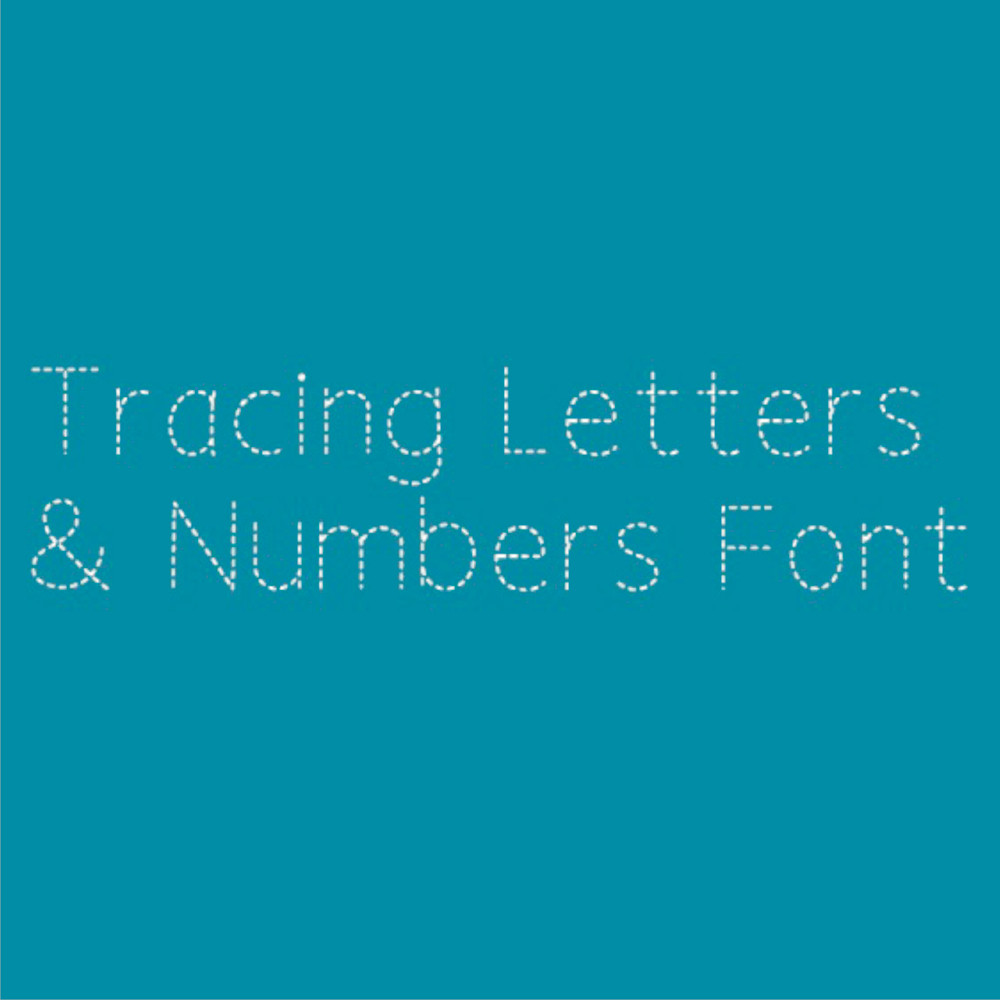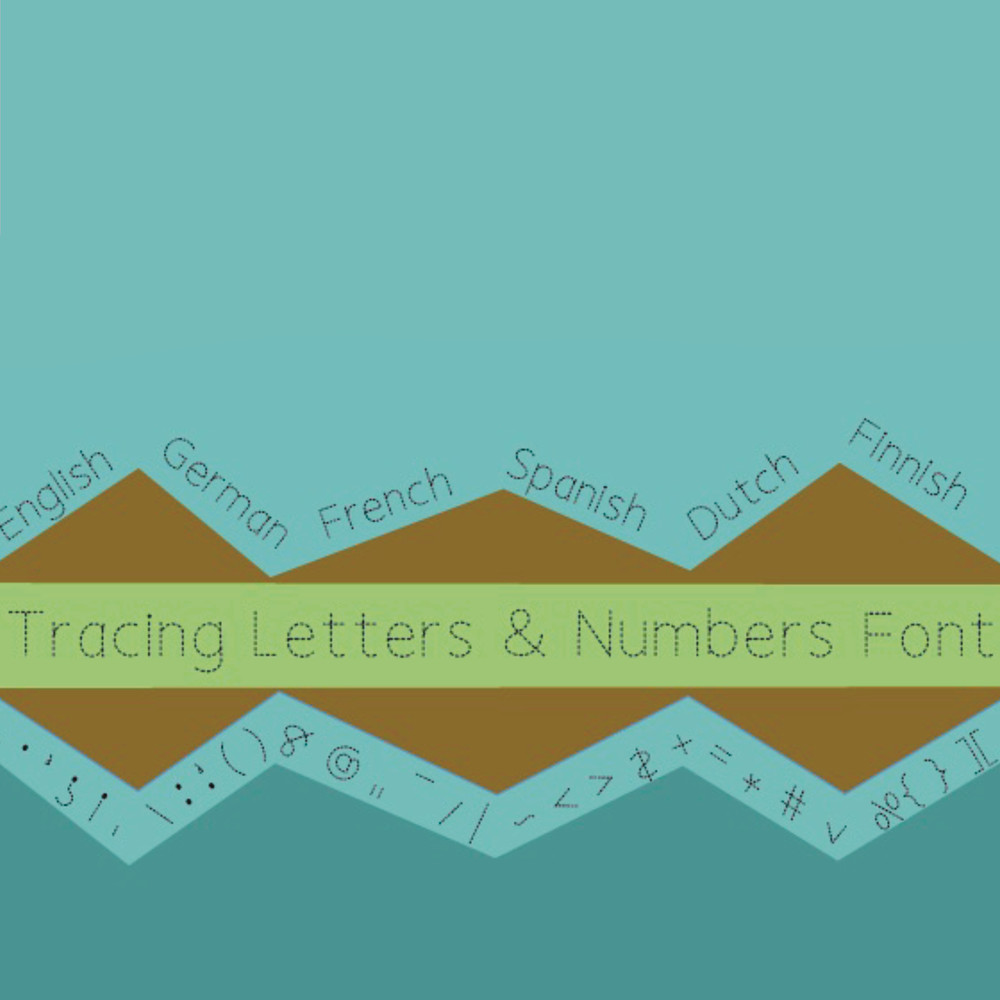
Tracing Letters and Numbers is a fun and useful handwritten font that is perfect for kids practicing writing. Its natural and unique style makes it incredibly fitting to a large pool of projects.
- Several languages
- Create your own education books easily.
- Letters and numbers.